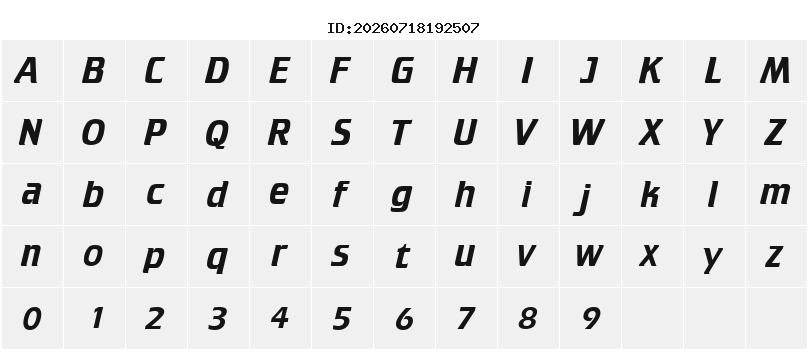
About 䍲楬汥?.ttf
䍲楬汥?.ttf is a modern, elegant sans-serif font designed for ultimate readability and visual harmony. Perfect for branding, headlines, web design, and print materials.